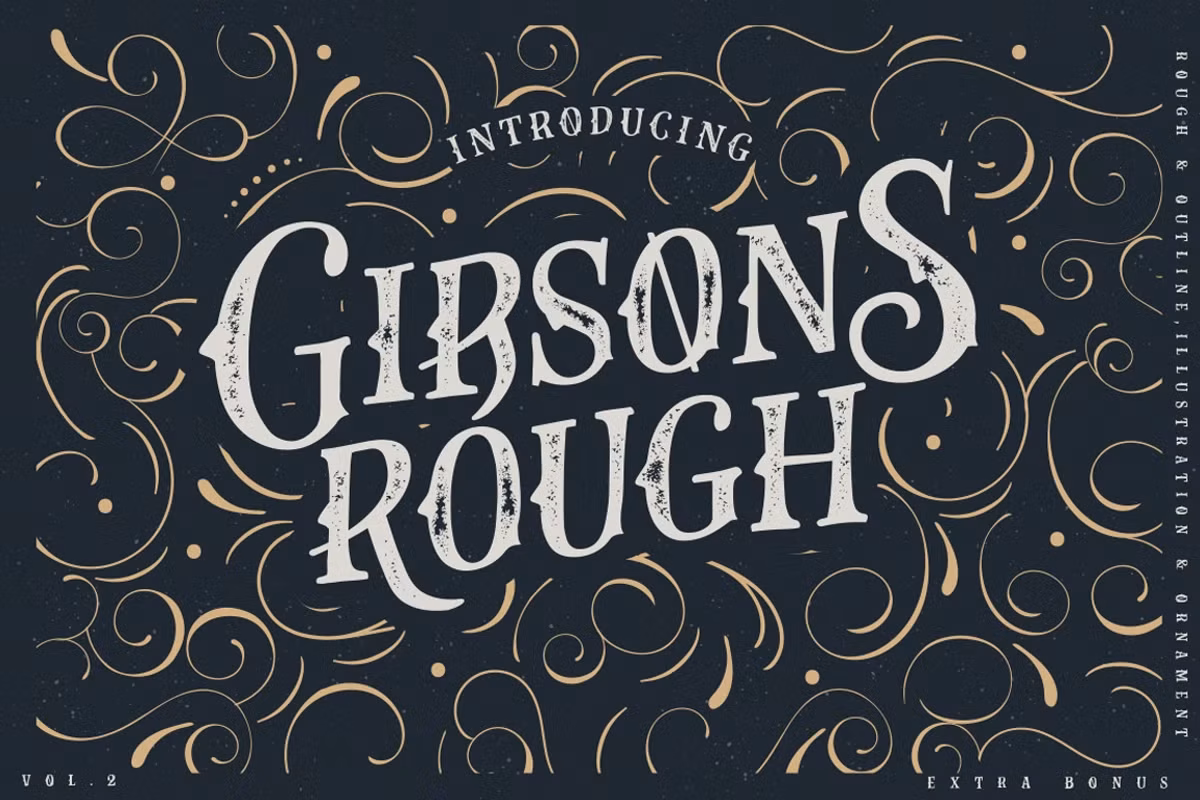
Gibsons Co Vol.2 Font Free Download is a bold and vintage-inspired typeface that captures the spirit of classic craftsmanship and heritage branding. Please note, you are required to purchase this font for commercial use. It is available for free download for testing and personal projects only.
With its strong serifs, solid structure, and timeless feel, Gibsons Co Vol.2 is perfect for logos, packaging, signage, apparel, and retro-style advertising. It adds character and confidence to your typography—making it ideal for brands that want to stand out with authenticity and grit.